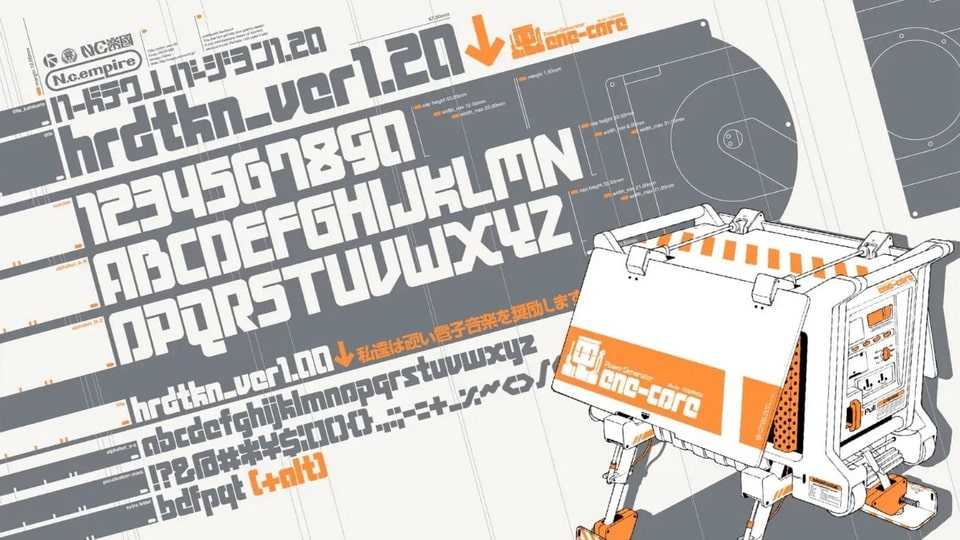
Download hrdtkn_ver1.20 font, a hard techno typeface based on a modular geometric grid. hrdtkn_ver1.20 font is ideally suited for advertising and packaging, poster and album covers, software and gaming.